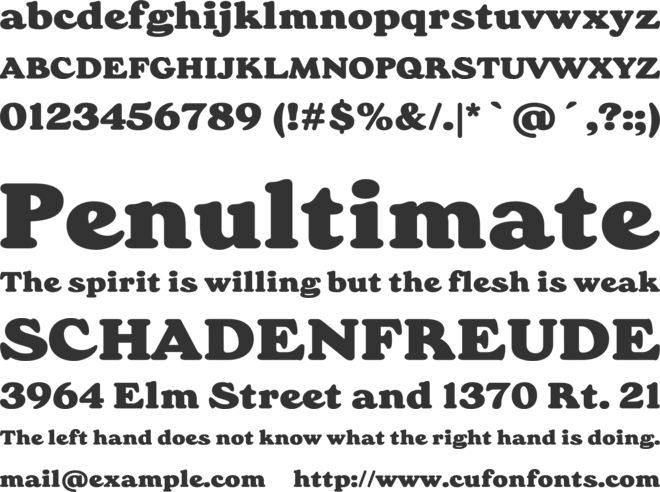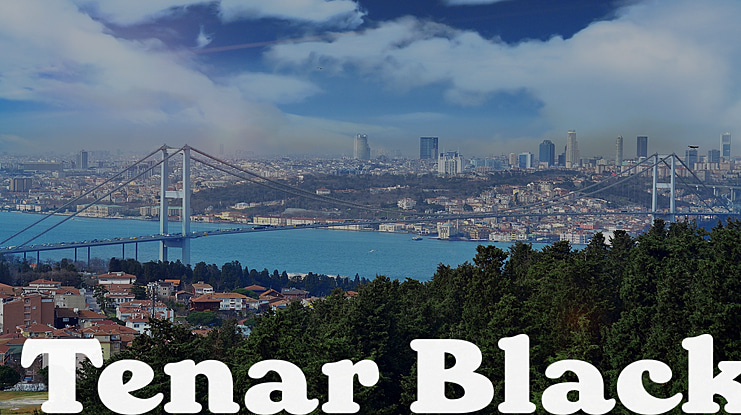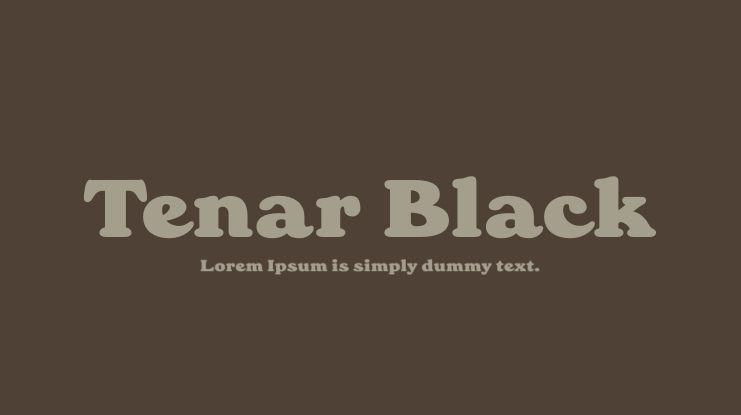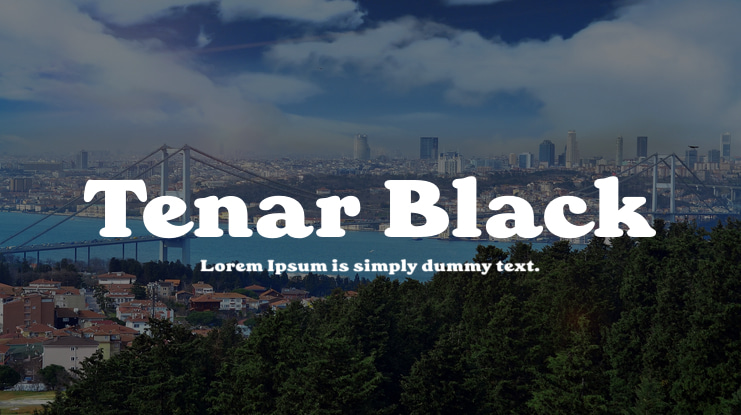
Tenar Black Font
Wahyu S. Adi Wibowo
Tenar Black is heavy display serif which is highly influenced by Souvenir and Cooper Black typeface.
Designers: Wahyu S. Adi Wibowo
Publisher: Wahyu and Sani Co.